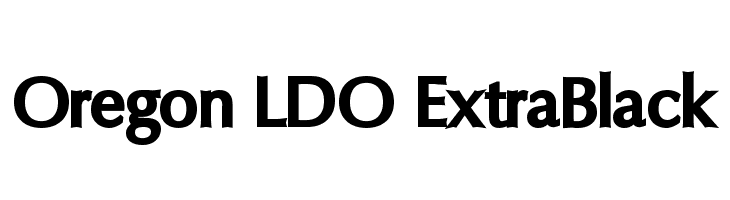
A bold, geometric font with strong strokes and modern appeal.
A bold, modern font with clean lines and a balanced structure, perfect for impactful designs.